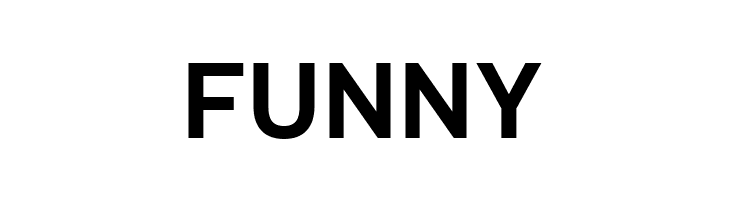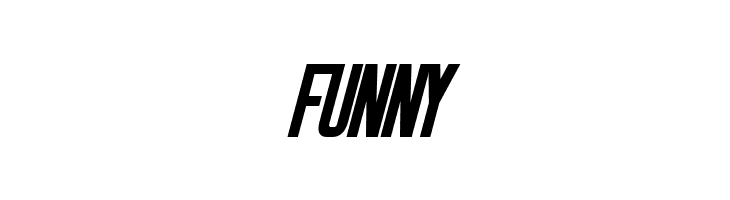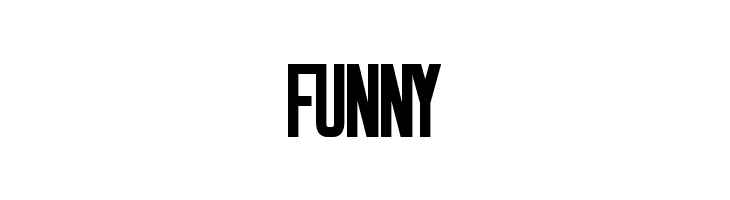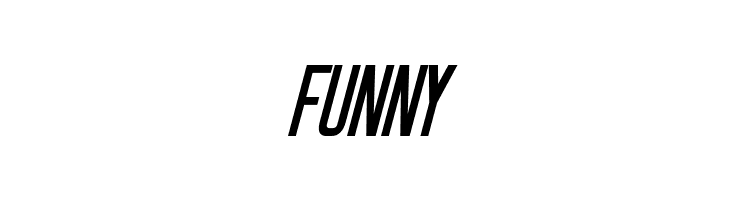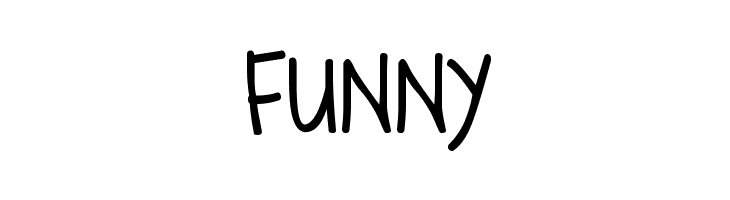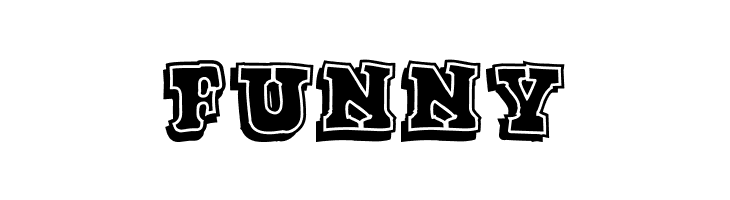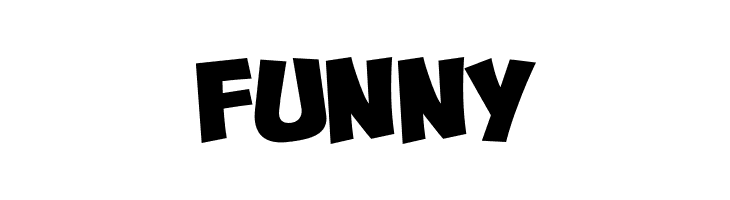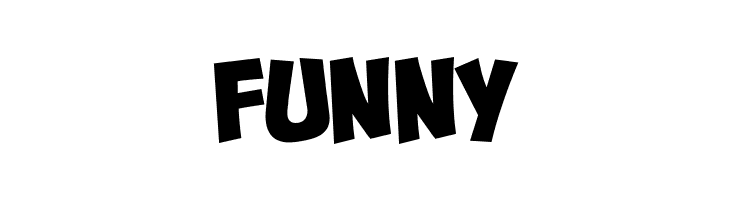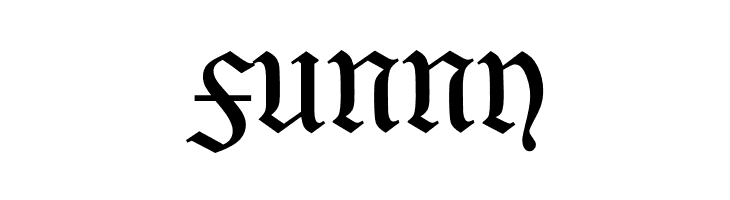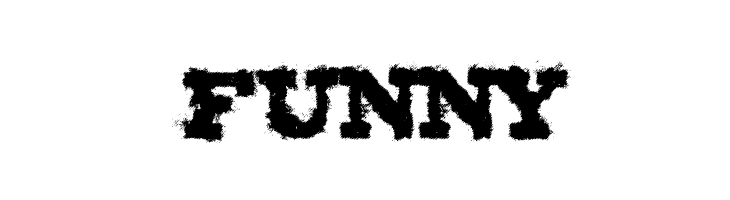
• NTR
A modern, clean sans-serif font with rounded edges and uniform strokes.
• NTS Akkhara
A modern, geometric sans-serif font with clean lines and balanced spacing.
• NTS Akkhara Bold
A modern, rounded sans-serif font with a clean and approachable style.
• NTS Akkhara Bold Italic
A modern, bold, italic font with consistent stroke thickness and a sleek design.
• NTS Akkhara Italic
A sleek, modern italic font with clean lines and a dynamic appearance.
• Nucleo MD
A bold, geometric font with a modern, industrial aesthetic.
• Nuernberg Messe
A bold, geometric font with uniform stroke width and modern aesthetics.
• Numans
A modern, clean sans-serif font with balanced spacing and consistent stroke width.
• Numans-Regular
• Nunito Medium
A modern, rounded sans-serif font with a friendly and approachable style.
• Nurmaya
A decorative font with intricate curls and loops, offering a whimsical and artistic style.
• Nurom Bold
• Nursery Tale
A whimsical, hand-drawn font with a playful, storybook aesthetic.
• Nymph's Handwriting
A playful, casual handwritten font with smooth, flowing lines.
• Obelix Pro Broken
• Obelix Pro Cry
• ObelixPro
• ObelixPro Bold